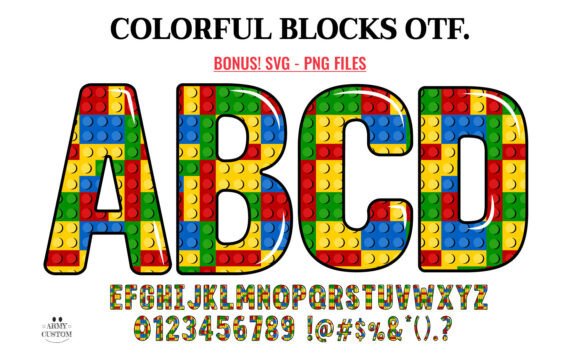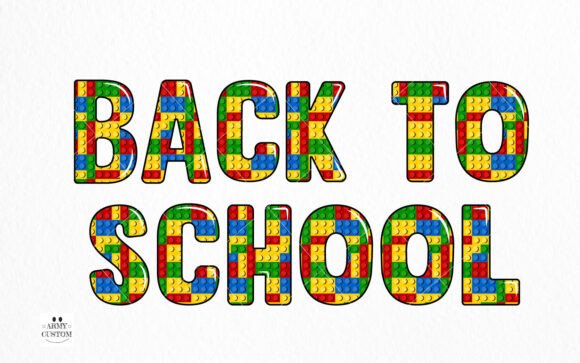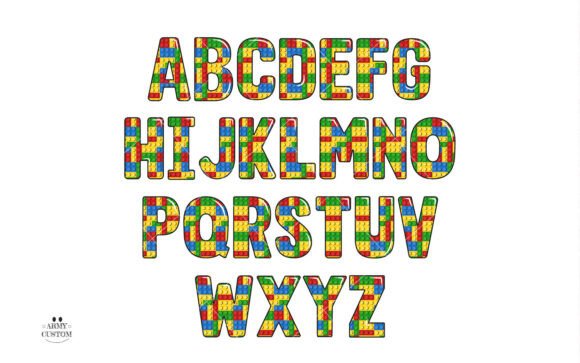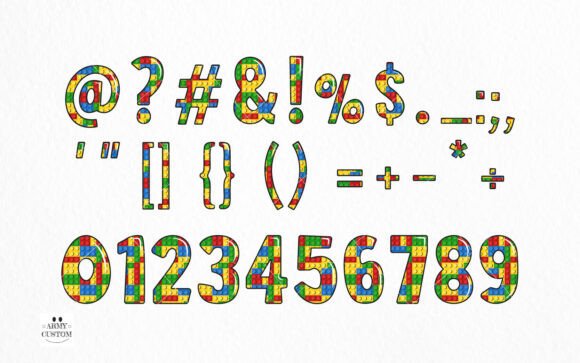
Colorful Blocks Font
Immerse in the playful aesthetics of Colorful Blocks Fonts – a creative ensemble of colorful, vibrant lettering designed to inspire. These whimsical letters, evocative of colorful building blocks, are perfect for all elements of children’s design – be it posters, games, or banners. The ability to form any word or phrase adds a versatile touch to its charm. Elevate your design game by introducing the Colorful Blocks Font, where creativity meets fun, and where every letter is a delightful discovery.